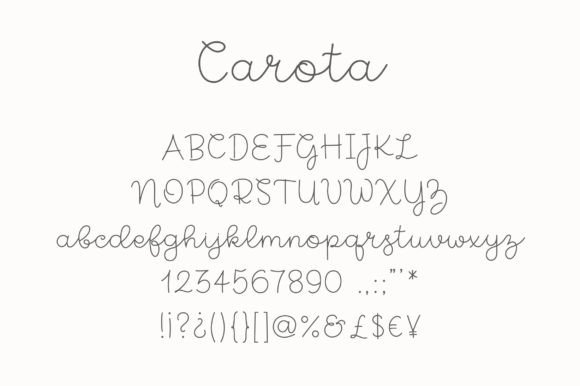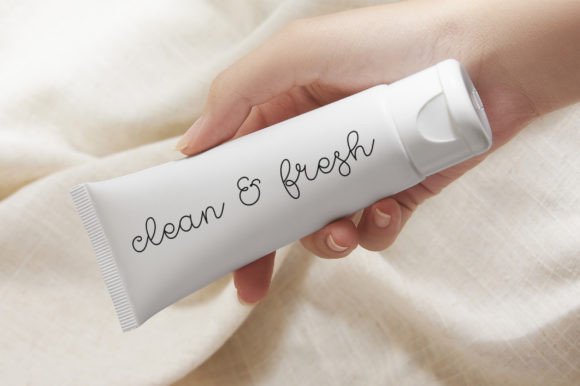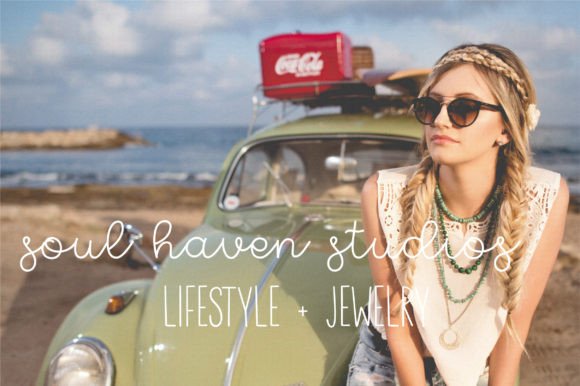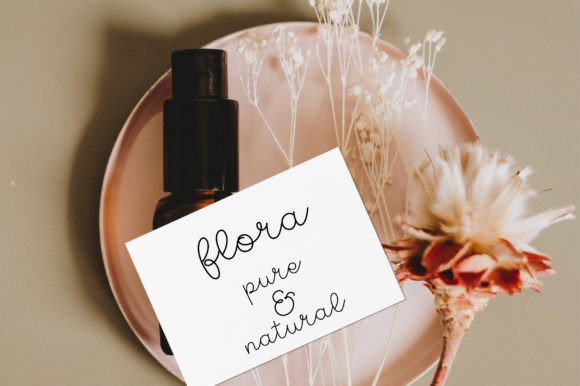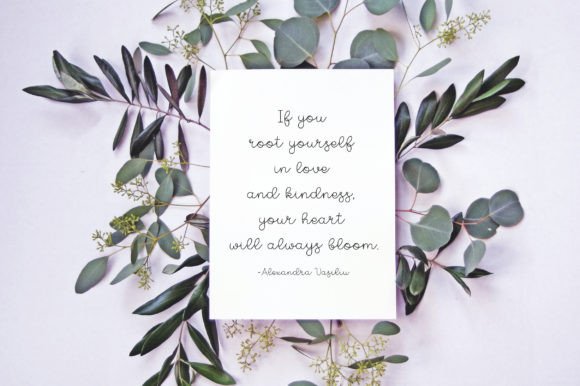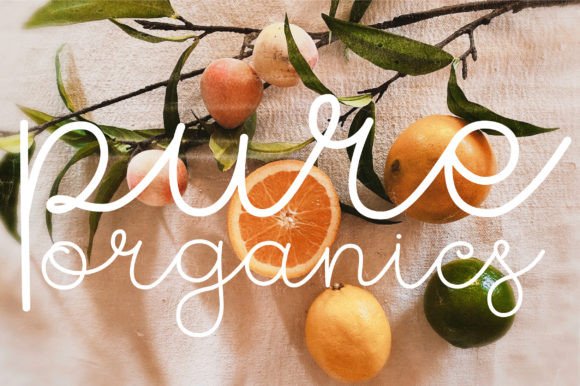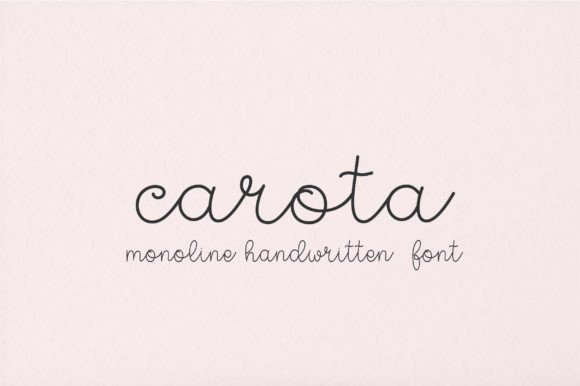
Introducing Carota Font: The Ultimate Handwritten Monoline Font for Designers and Crafters
Are you a designer, crafter, or DIY enthusiast looking for a font that can add a touch of personality and whimsy to your projects? Look no further than Carota Font, a cute and fun handwritten monoline font that’s perfect for a variety of creative applications. In this article, we’ll take a closer look at Carota Font, its features, and how it can elevate your crafting projects, social media graphics, apparel design, product design, and branding.
What is Carota Font?
Carota Font is a modern, handwritten monoline font that’s designed to bring a sense of playfulness and charm to your designs. Its clean lines, simple shapes, and rounded edges make it a versatile font that can be used in a wide range of projects, from digital designs to print materials. Whether you’re creating a social media graphic, a craft project, or a brand identity, Carota Font is the perfect choice.
Key Features of Carota Font
So, what makes Carota Font so special? Here are some of its key features:
• Full Uppercase and Lowercase Characters: Carota Font includes a full set of uppercase and lowercase characters, giving you the flexibility to create a wide range of designs.
• Western European Language Support: Carota Font supports Western European languages, making it a great choice for designers who work with international clients or want to create designs for a global audience.
Use Cases for Carota Font
So, what can you use Carota Font for? The possibilities are endless! Here are some ideas to get you started:
• Crafting Projects: Carota Font is perfect for crafting projects, such as scrapbooking, card making, and DIY paper crafts. Add a personal touch to your projects with this charming font.
• Social Media Graphics: Create eye-catching social media graphics with Carota Font. Its playful and modern design makes it perfect for Instagram, Facebook, and Twitter.
• Apparel Design: Carota Font is a great choice for apparel design, including t-shirts, hoodies, and tote bags. Create custom designs that are both fun and stylish.
• Product Design: Use Carota Font to create product labels, packaging, and branding materials that stand out. Its clean and simple design makes it perfect for product design.
• Branding: Carota Font is also a great choice for branding, including logos, business cards, and letterheads. Create a cohesive brand identity with this versatile font.
Why Choose Carota Font?
So, why should you choose Carota Font for your next project? Here are just a few reasons:
• Unique and Playful Design: Carota Font has a unique and playful design that’s sure to grab attention.
• Versatile: Carota Font is versatile and can be used in a wide range of projects, from digital designs to print materials.
• Easy to Read: Carota Font is easy to read, making it perfect for body text and headlines.
In conclusion, Carota Font is a cute and fun handwritten monoline font that’s perfect for designers, crafters, and DIY enthusiasts. Its unique and playful design, versatility, and high-quality files make it a great choice for a wide range of creative projects. Whether you’re creating a social media graphic, a craft project, or a brand identity, Carota Font is the perfect choice. So why wait? Download Carota Font today and start creating!